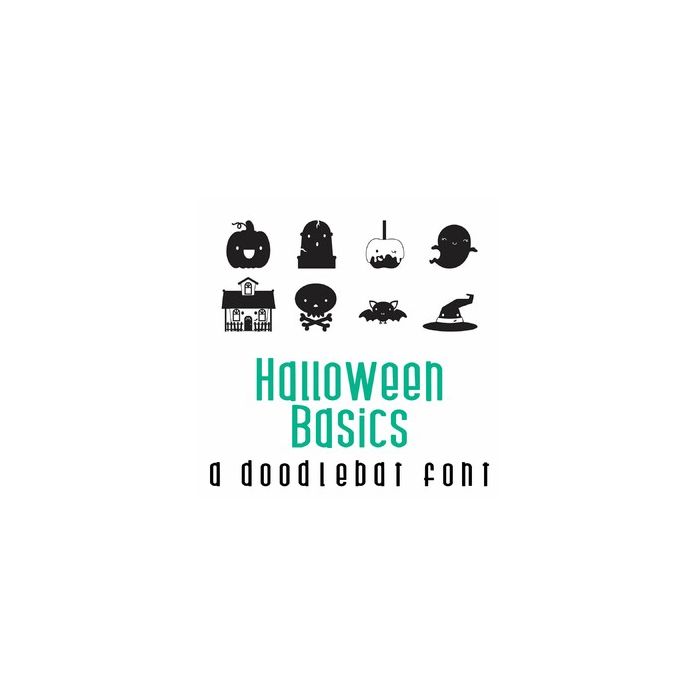
This fun doodlebat font features 26 adorable Kawaii-style Halloween images, perfect for cards, gifts, decor, crafts, scrap book pages, planner stickers and more!